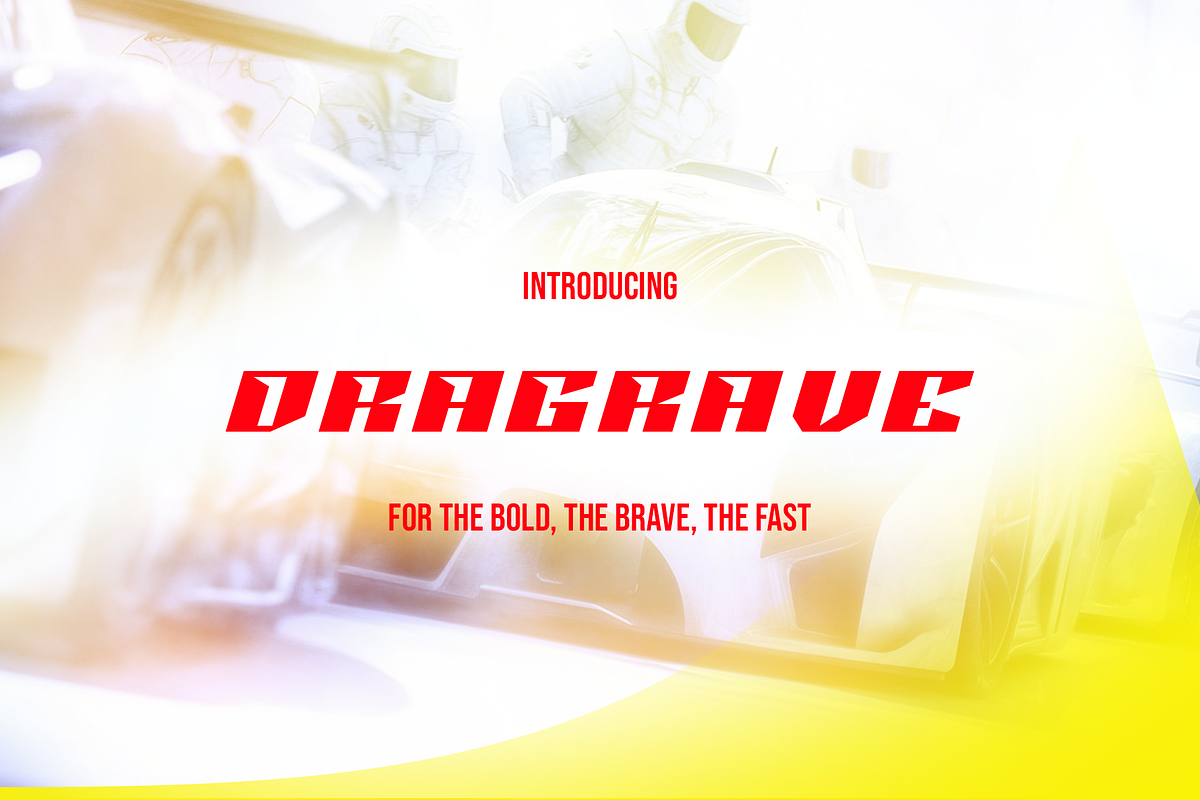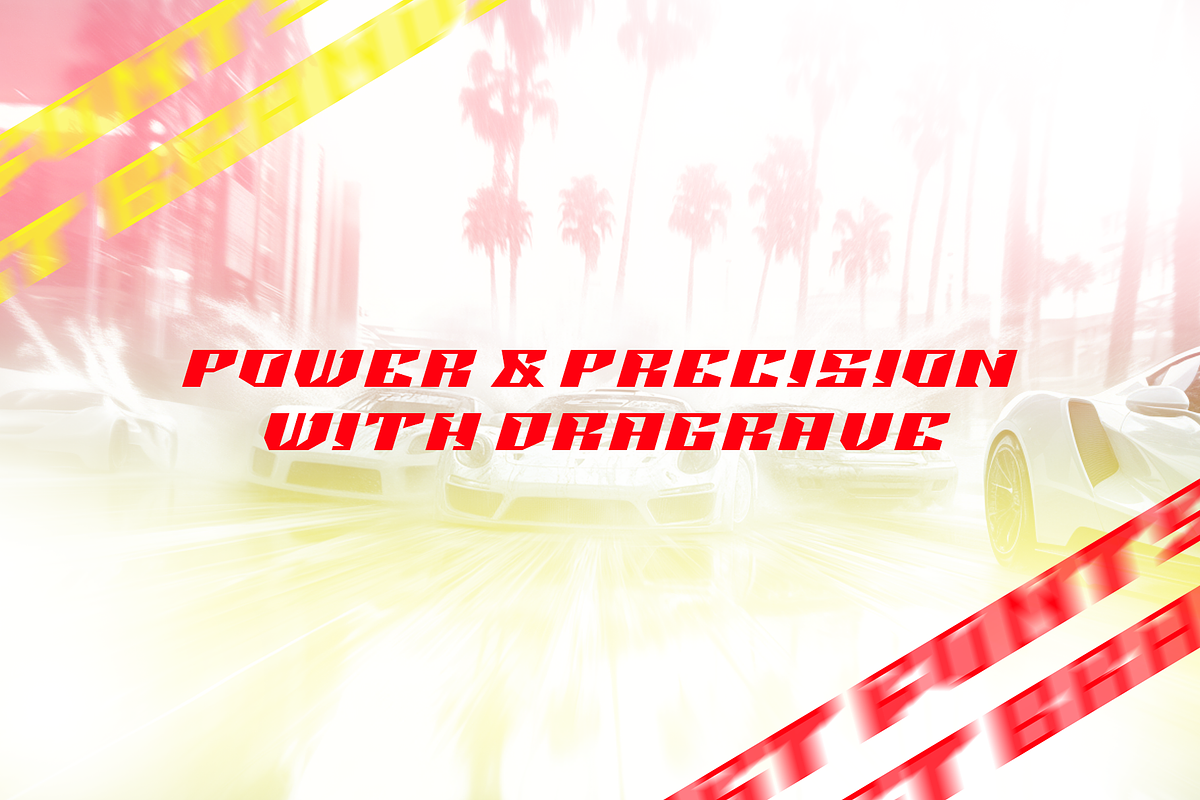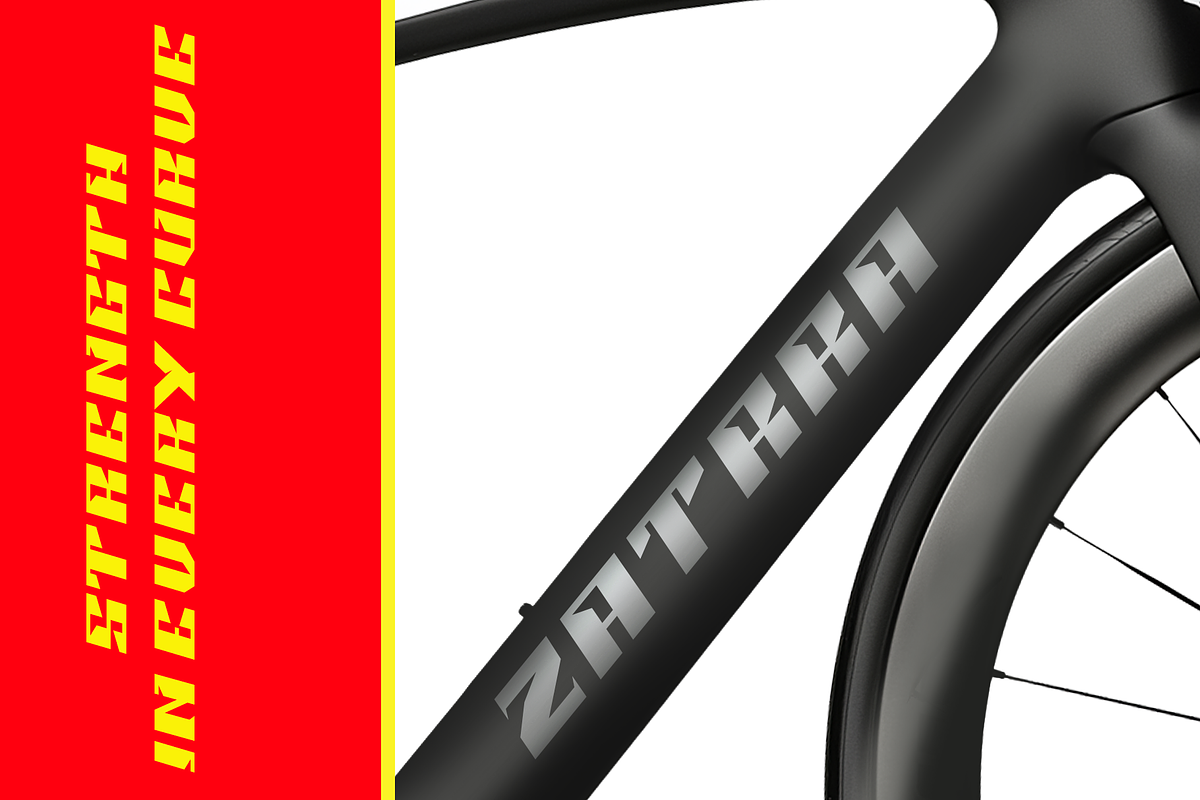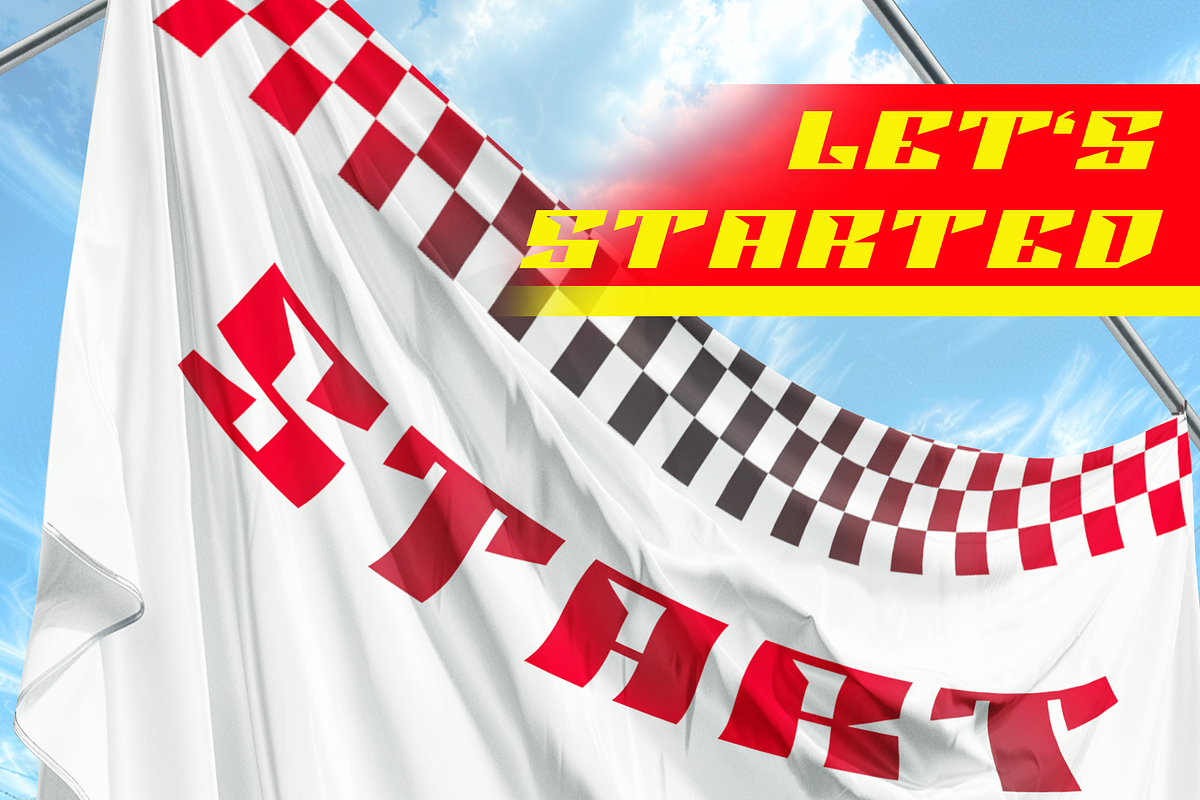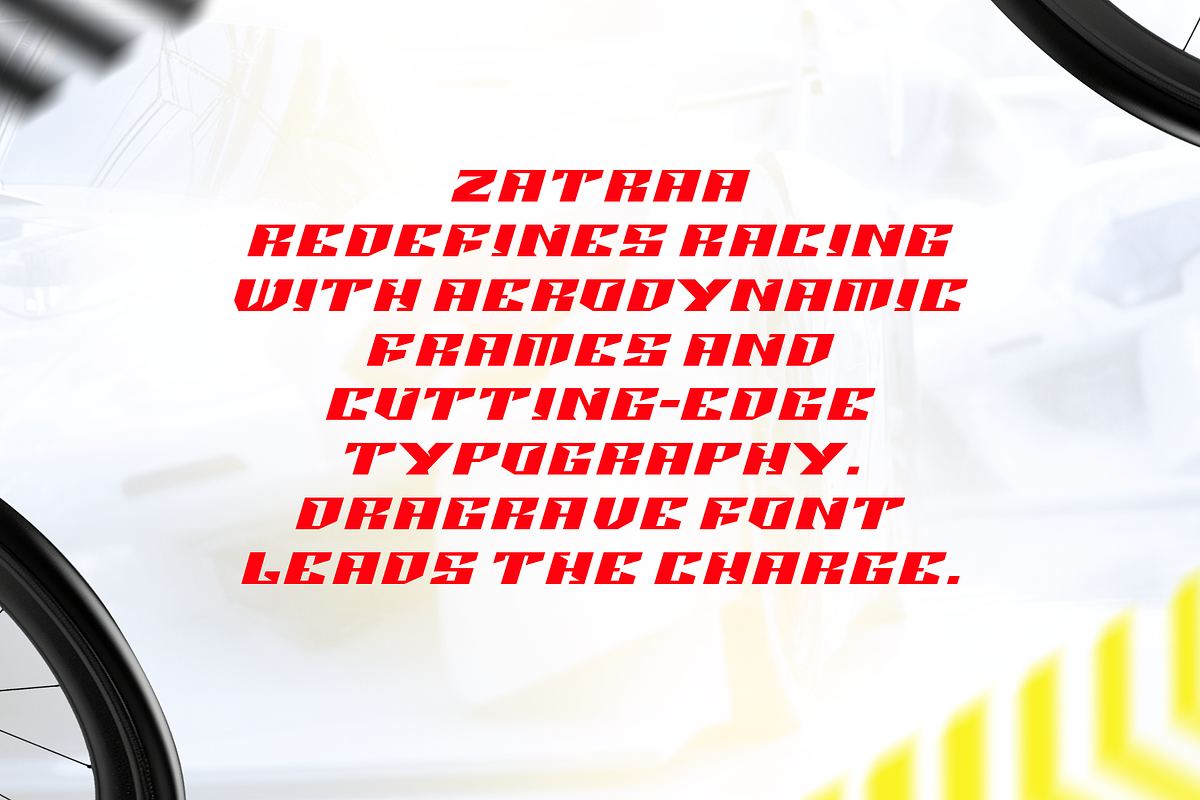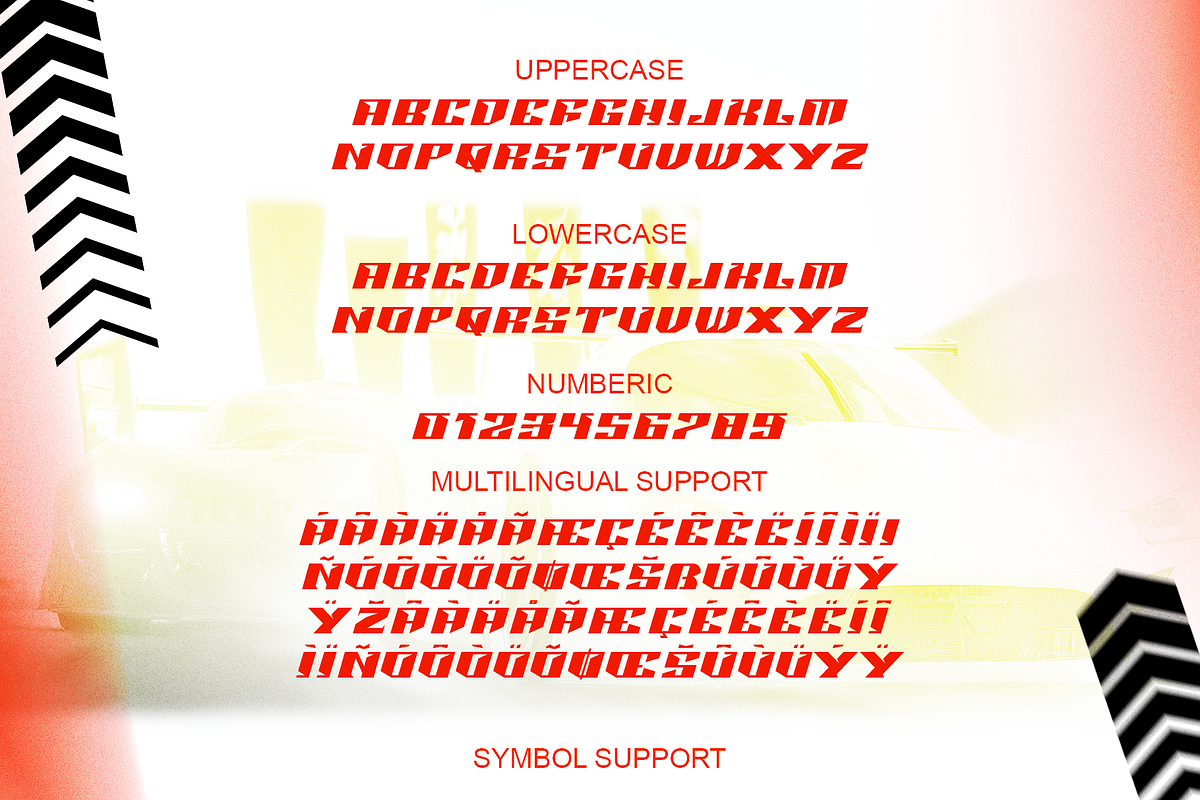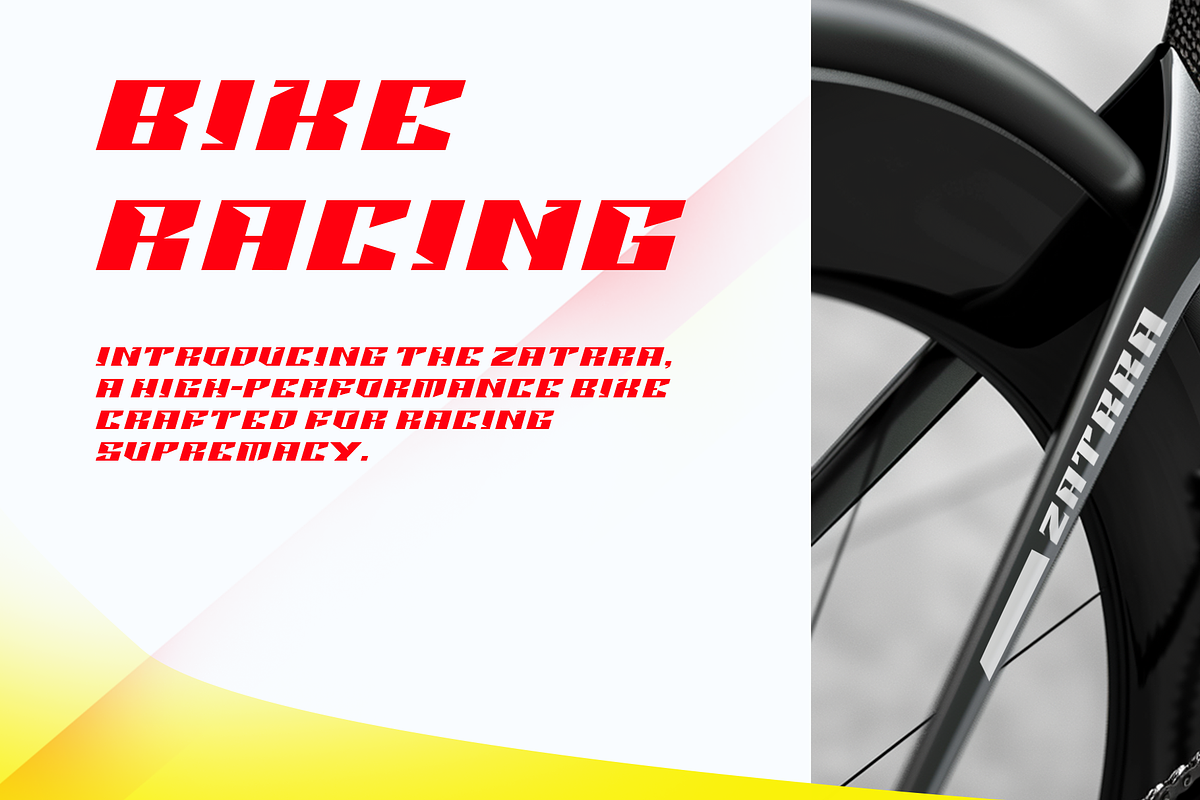
Dragrave-Display Sport Font
Introducing Dragrave – High-Octane Racing Font
Unleash the raw power of high-speed design with Dragrave, a cutting-edge typeface meticulously crafted to capture the spirit of adrenaline-fueled racing. This bold and aggressive font is engineered to transform your creative projects, infusing them with a dynamic, high-performance aesthetic.
At its core, Dragrave embodies the essence of automotive and sports design, exuding strength, speed, and precision. With bold, streamlined lines and unique character shapes, it’s the perfect choice for a wide range of graphic applications, ensuring versatility across multiple platforms and mediums.
Highlighted Features:
- Complete Set: Uppercase letters, numerals, and essential punctuation marks.
- Dynamic Design: Bold lines and high-speed-inspired details for a distinctive, competitive look.
- Multilingual Support: Includes special characters for broader accessibility.
Dragrave goes beyond functionality, standing as a symbol of bold, high-energy creativity. Its adaptability makes it ideal for motorsports branding, team logos, action-packed posters, and performance-driven apparel.
Whether amplifying the impact of a racing event poster or adding a touch of power to automotive branding, Dragrave delivers a striking presence that captivates every viewer. It’s not just a typeface; it’s a force of design innovation that bridges bold creativity with the thrill of high-speed aesthetics.